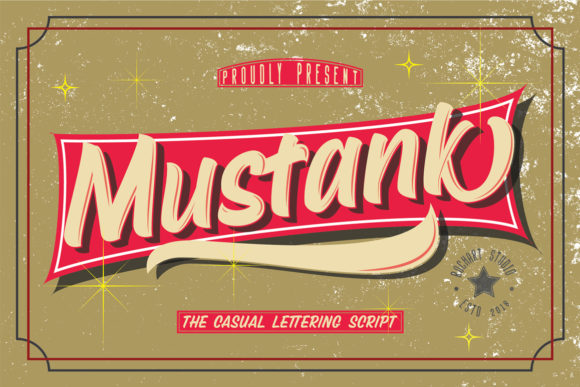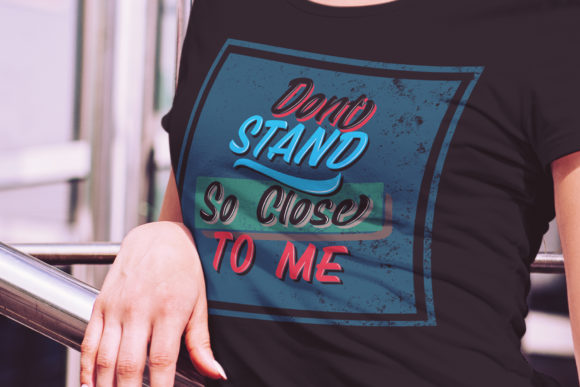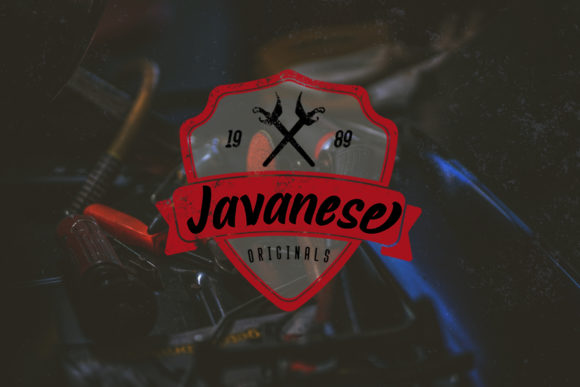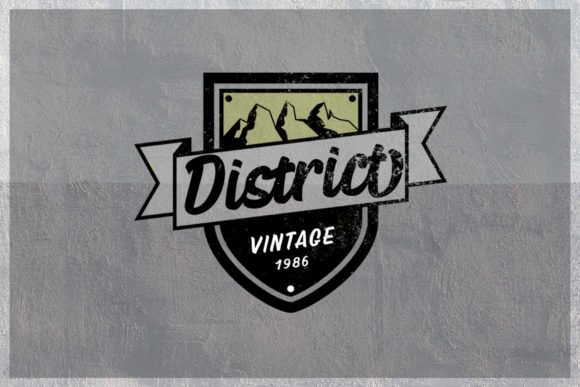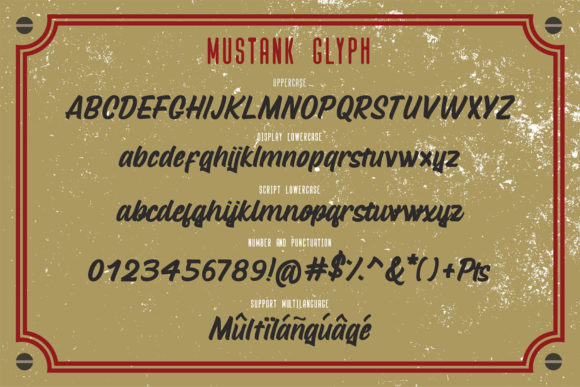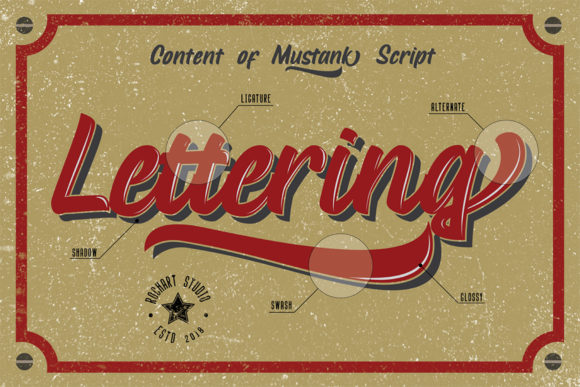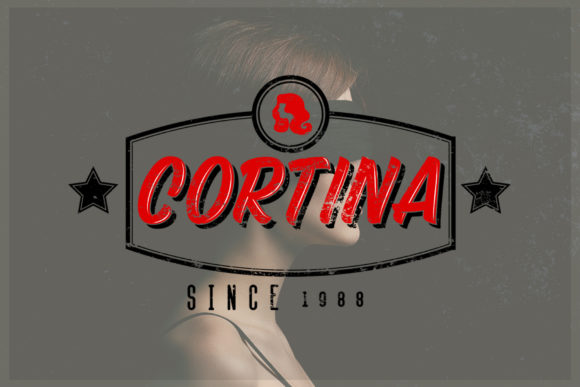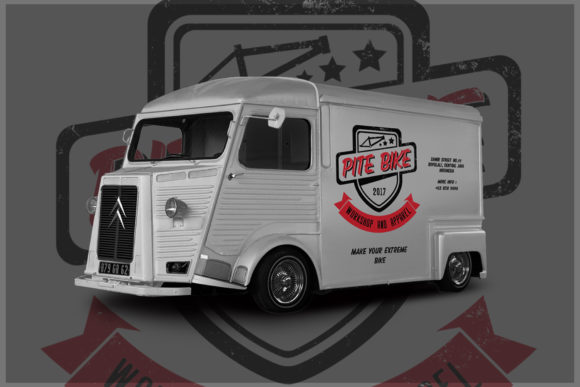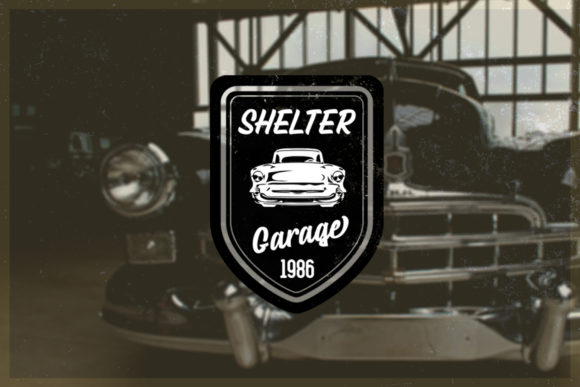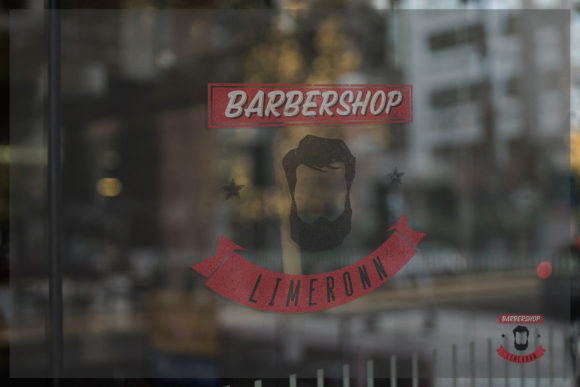
Mustank Font
About Mustank Font
The Mustank is a casual, yet striking typeface collection. All included styles are designed to complement each other in their use.
It’s perfect for logos, t-shirts, flyers, apparel, packaging, advertising, and much more!